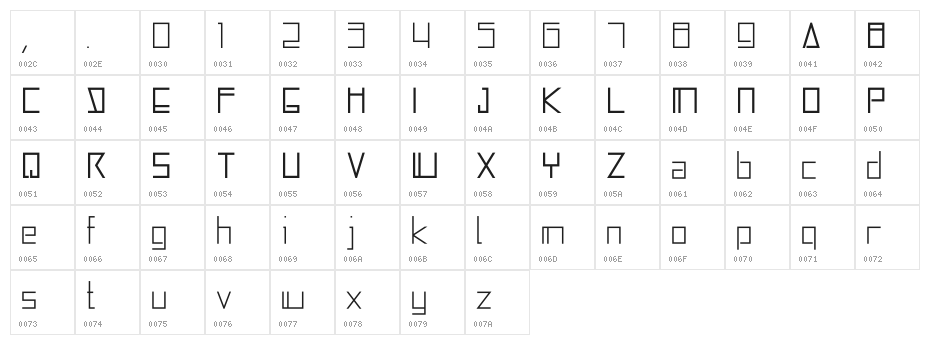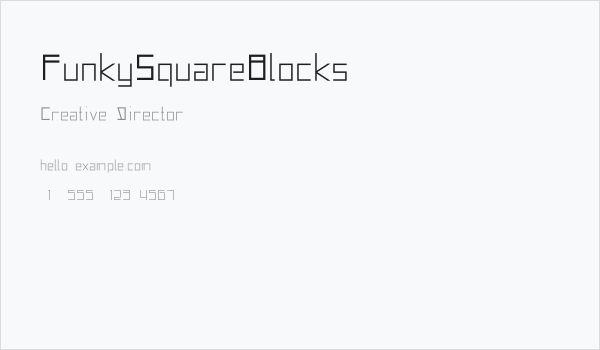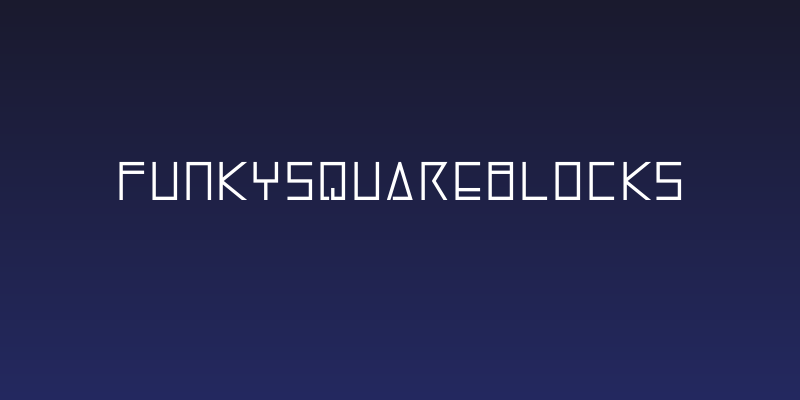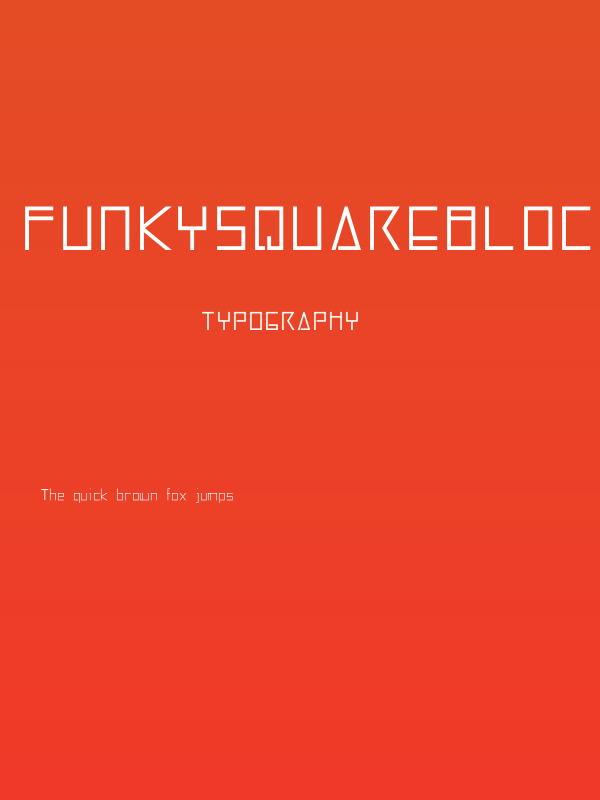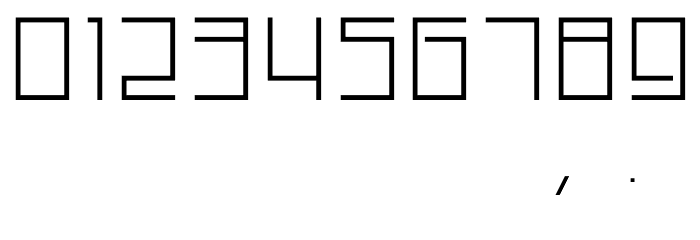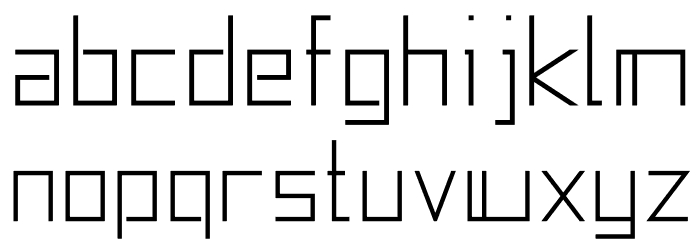
FunkySquareBlocks Font
FunkySquareBlocks Description
This font features a geometric and modern design, characterized by its square and angular letterforms. Each character is constructed with straight lines and sharp angles, giving it a futuristic and digital appearance. The uppercase letters are particularly distinctive, with some incorporating unique shapes and cuts that add to the font's edgy style. The lowercase letters maintain a consistent geometric structure, while the numerals are bold and clear, ensuring legibility. The special characters are minimalistic, aligning with the overall aesthetic. This font's design is both striking and functional, making it suitable for a variety of creative applications.